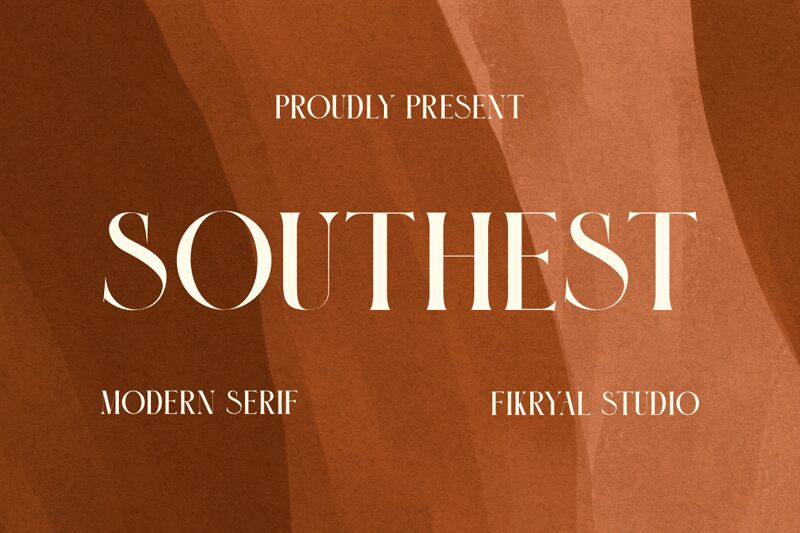
Fikryal studio’s Southest font is a serif typeface that has elegance written all over it. This means if you need a more refined and classic look for your project, go with it. The serifs are particularly sharp and the lines are elegant making this font great for any design seeking sophistication.
Southest font – being free to use personally – also commands attention while preserving readability due to its bold presence which makes it ideal for branding, editorial designs or invitations.